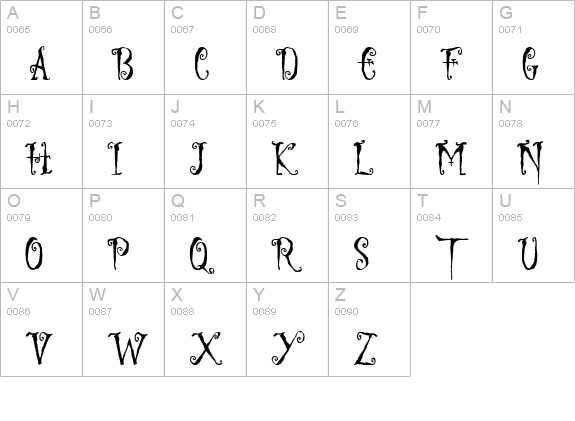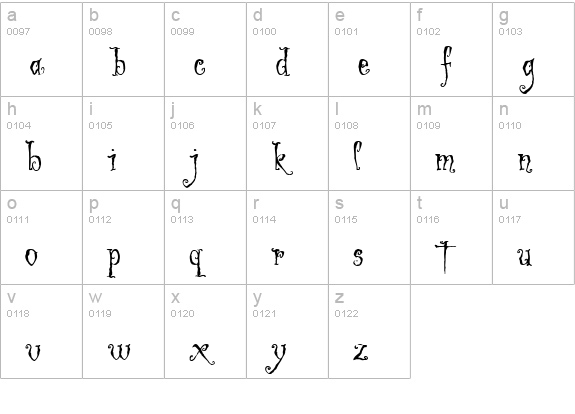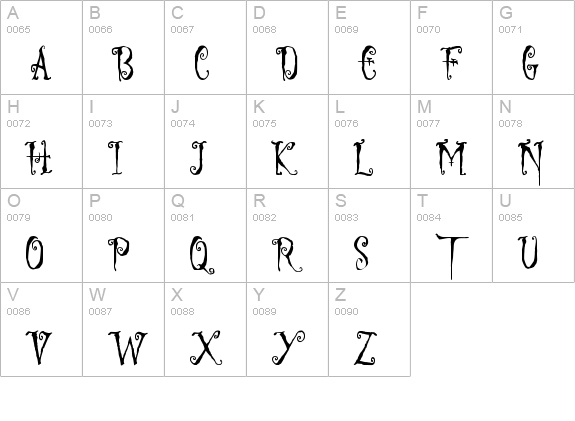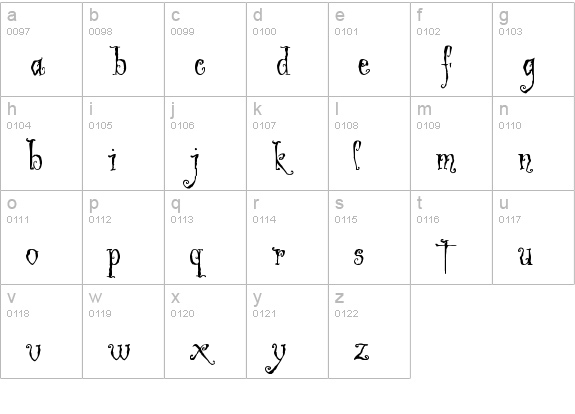
Ligeia Demo Font Details
Ligeia Demo font is a stunning display typeface that exudes elegance and sophistication. With its intricate details and graceful curves, this font is sure to make a statement in any design project. The timeless beauty of Ligeia Demo font adds a touch of class and refinement to your work. What makes Ligeia Demo font even more appealing is that it is completely free to download at FontsMarket.com. Whether you are working on a branding project, editorial design, or any other creative endeavor, Ligeia Demo font will elevate your work to new heights. Don't miss out on this exquisite typeface that is both captivating and versatile. Download Ligeia Demo font today and unleash your creativity with this exceptional font.